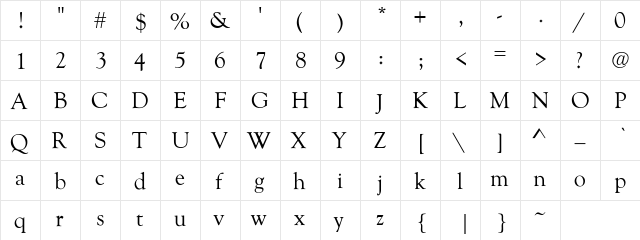
Goudy-Normal Regular
Design Context for Goudy-Normal Typeface
Goudy-Normal takes a measured approach to typography — its balanced proportions and neutral character make it a reliable workhorse for both digital and print work.